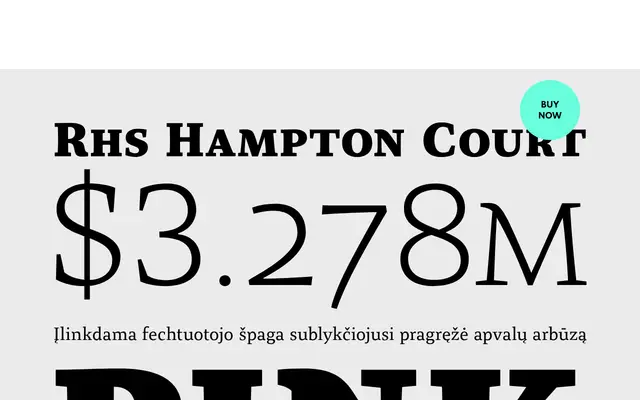
Organon Serif
A six-weight modern serif blending slab and calligraphic traits, designed to pair with its companion Organon Sans.
Organon Serif shares metrics and stem widths with Organon Sans, allowing the two families to work together as a coordinated typographic system. The serif carries a chunky, characterful quality drawn from both slab and calligraphic influences, supported by a thorough set of OpenType features including small caps, swash alternates, old style figures and discretionary ligatures. Language coverage extends across West European, Central and East European, Baltic and Turkish scripts.
Organon Serif blends slab and calligraphic traits, giving it a contemporary character that sits between a traditional serif and a slab; the page describes it explicitly as a modern serif face with chunky, sturdy qualities.